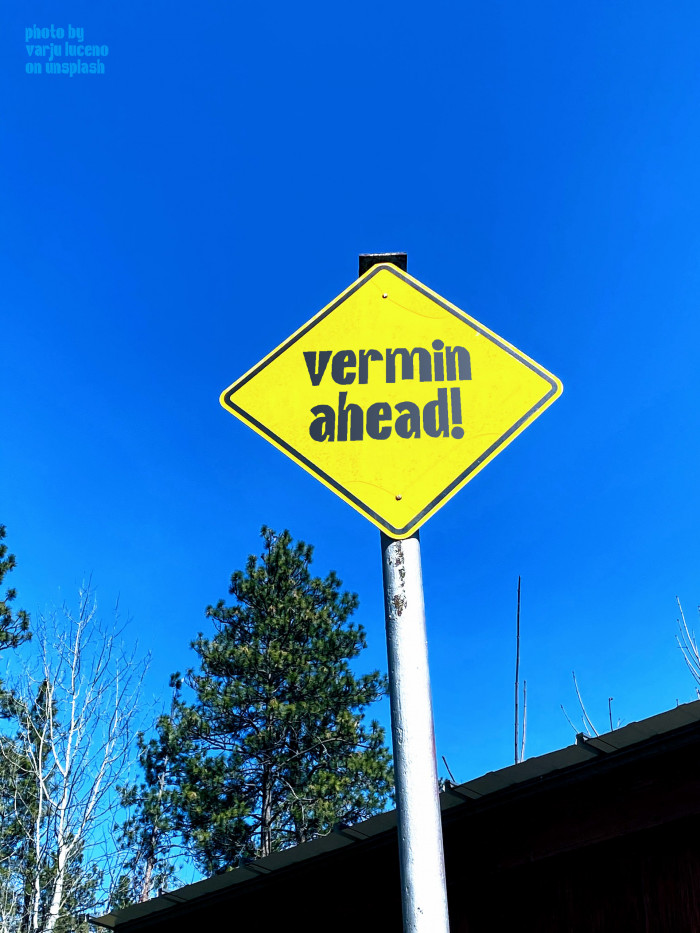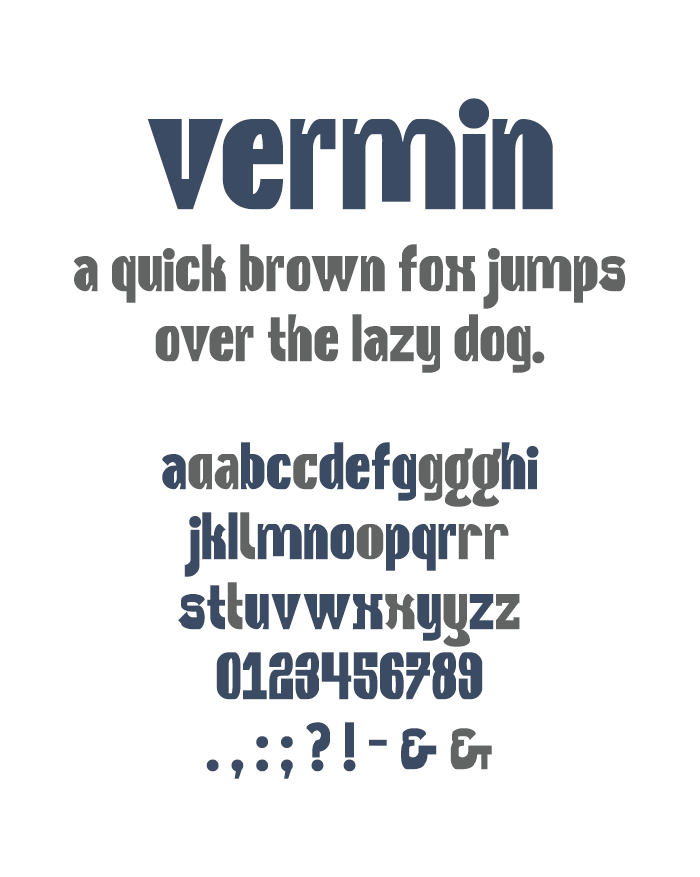
• A — single-story “a”;
B — alternate “a”;
E — alternate “&”;
H, I — double-story “g”;
P — alternate “r”;
C, G, L, O, R, T, X, Y, Z — alternate “c”, “l”, “o”, “r”, “t”, “x”, “y”, “z” respectively;
Very nice and playful characteristic to the font, that somewhat resembles a handwritten blockletter, and it would certainly fit a comic book or other themes aimed at a younger demograph.
Great, 10/10!  reminds me of one of my fonts, mayonaise.